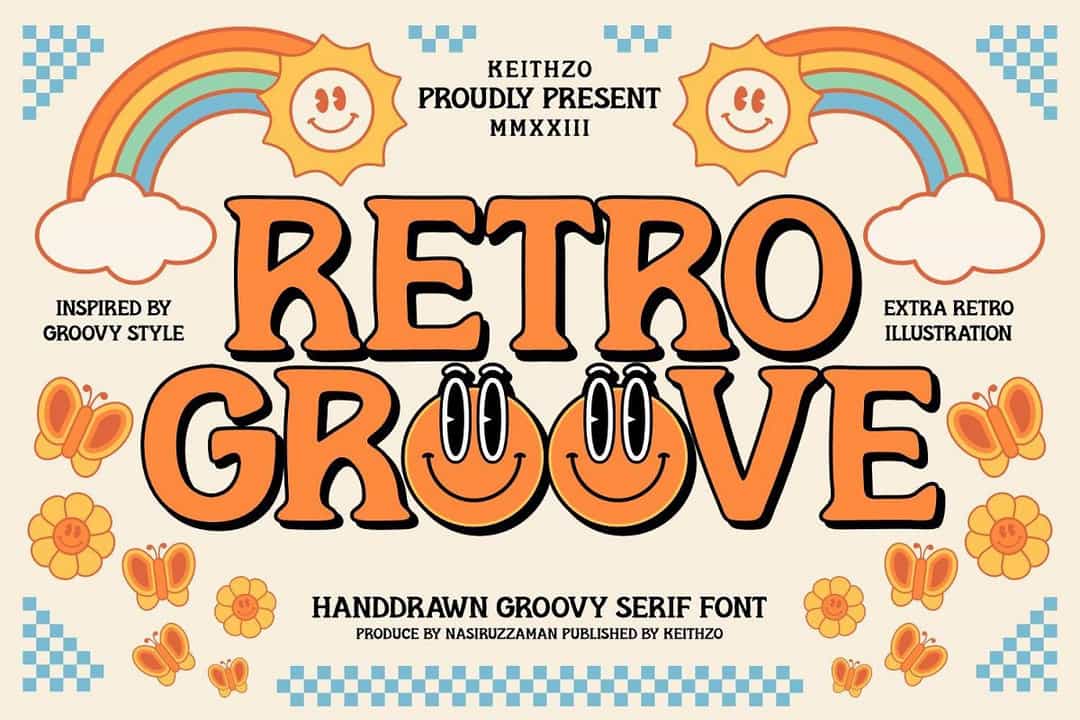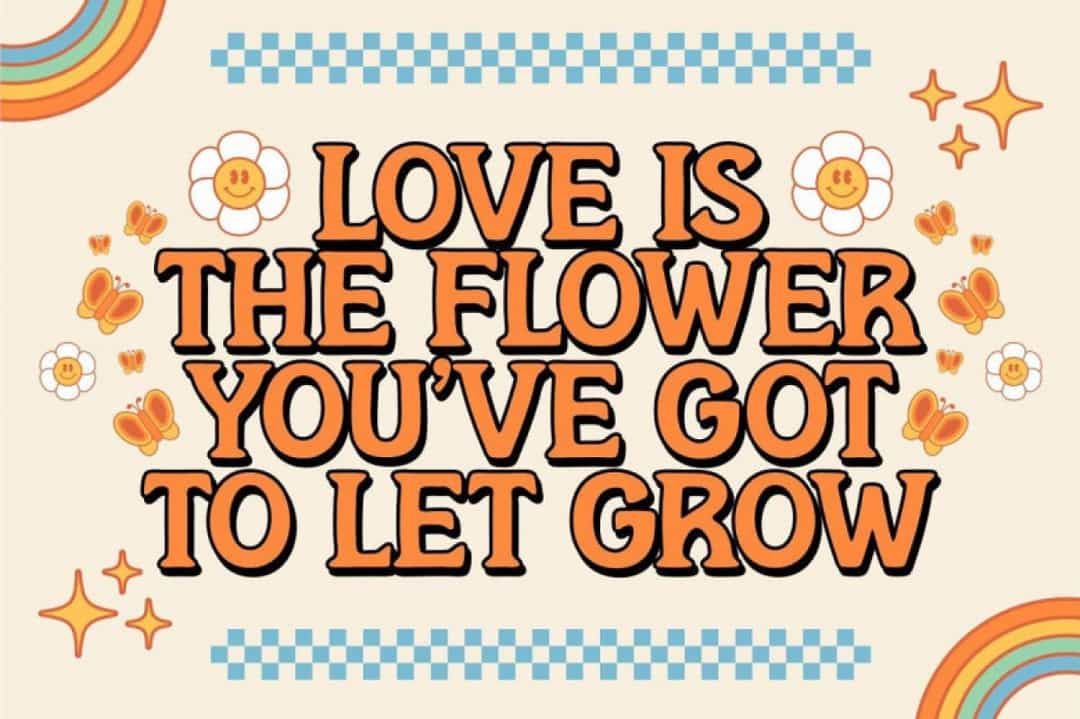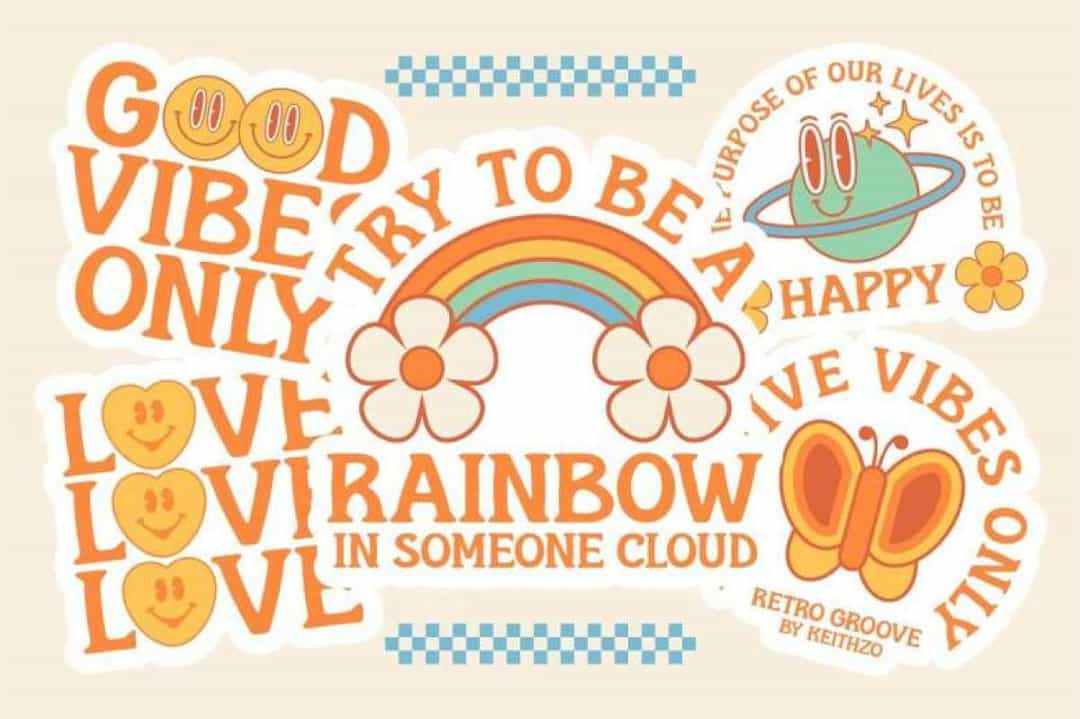
Retro Groove is an eye-catching display font with a vintage 70s aesthetic, perfect for retro designs and posters with individualistic touches that need attention and require individuality. Its curvy letters feature unorthodox angles that create the impression of movement.